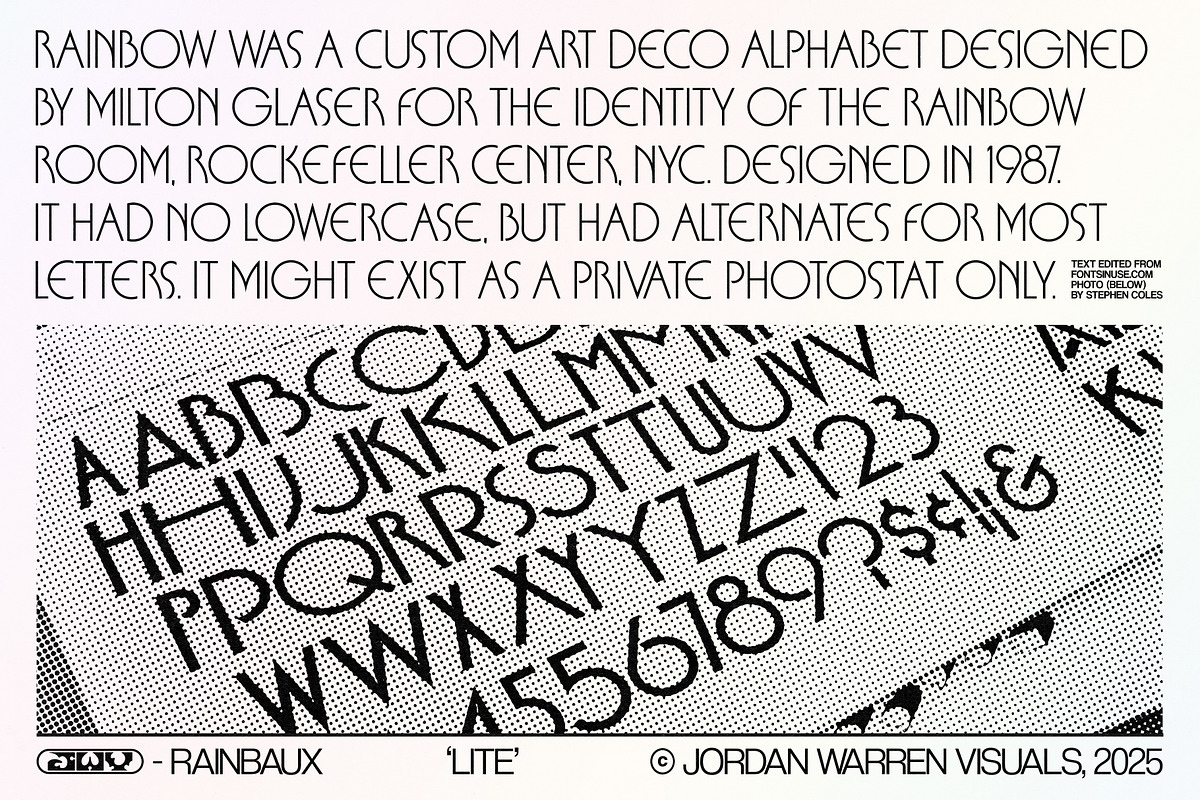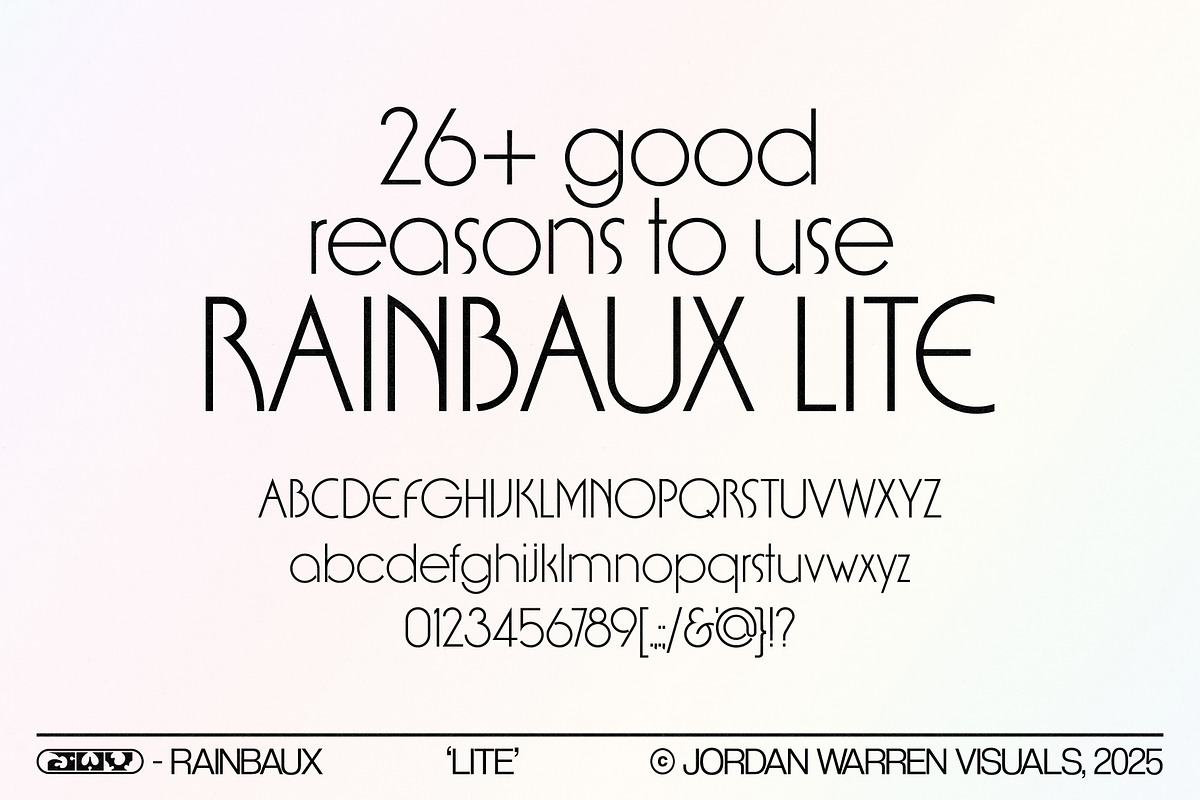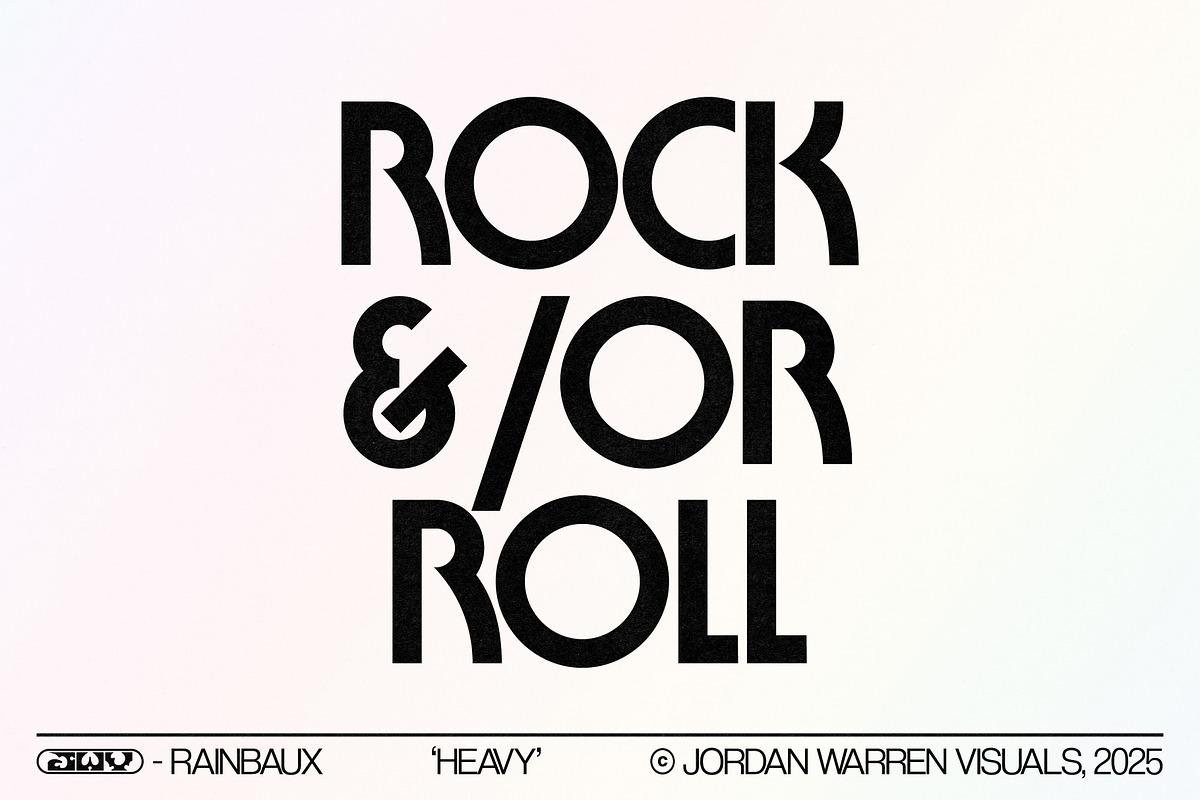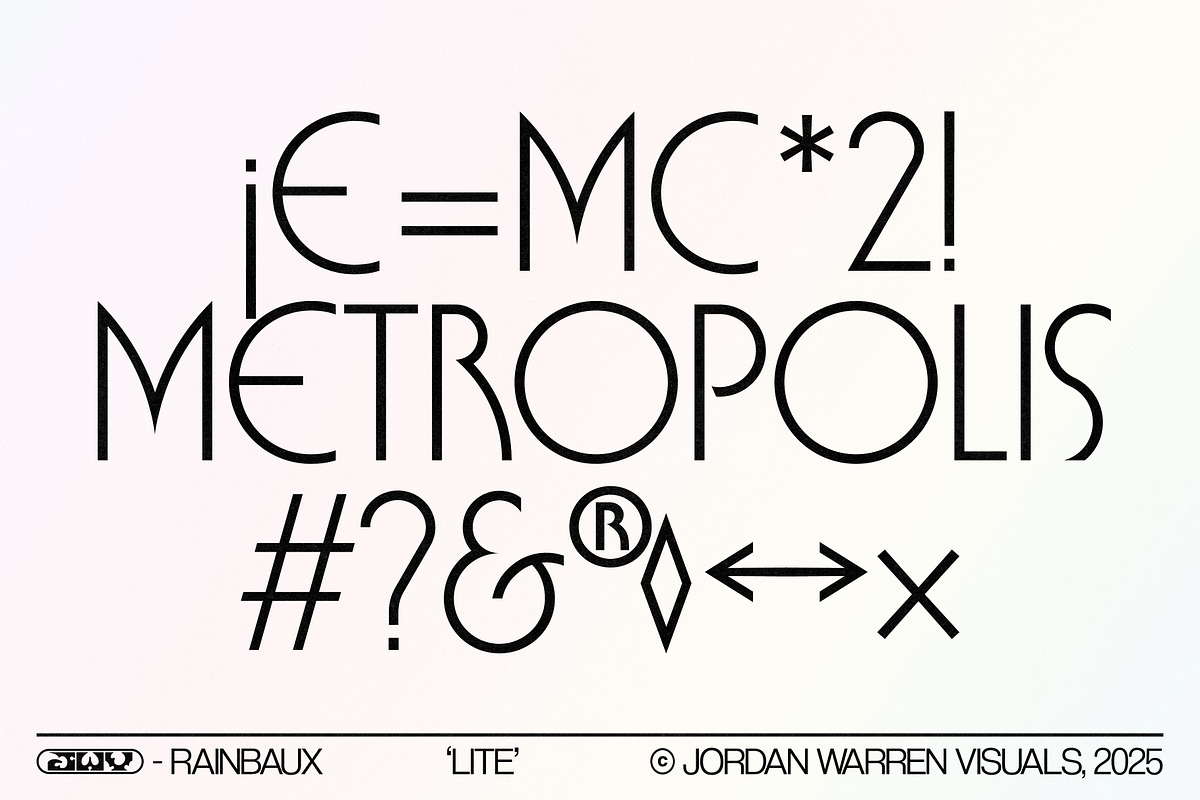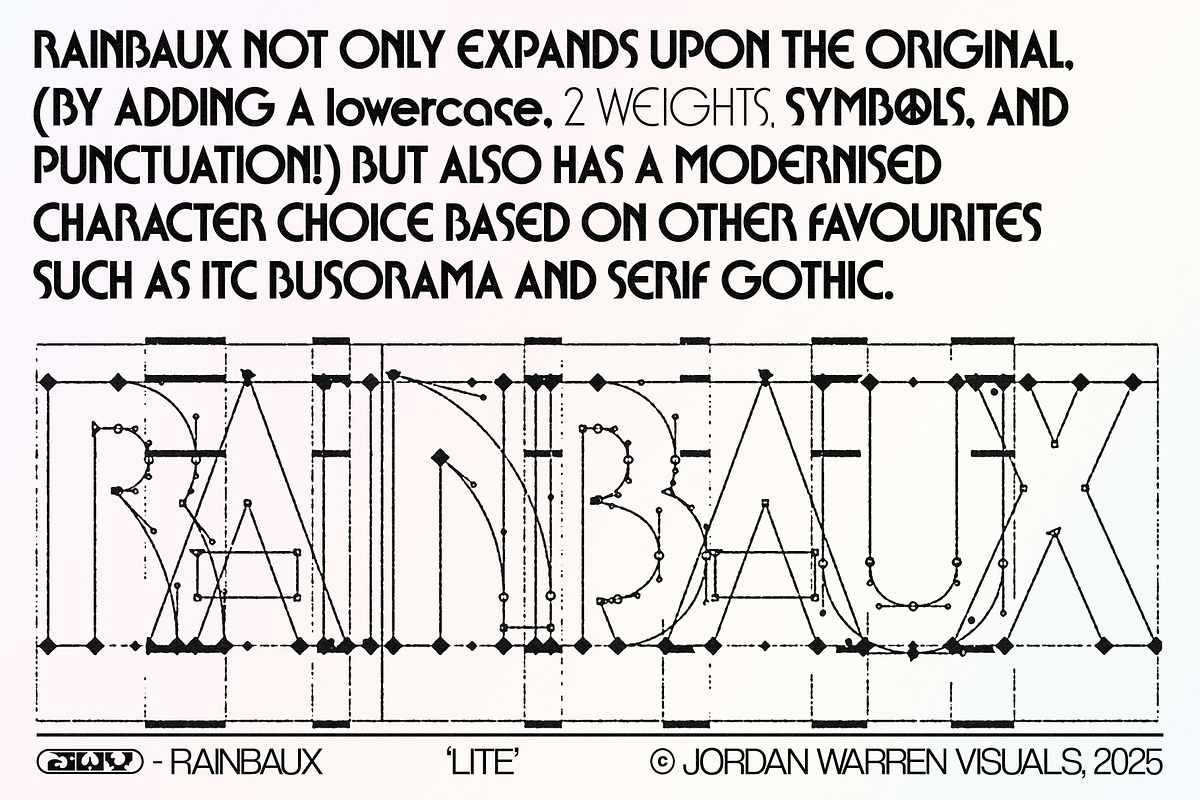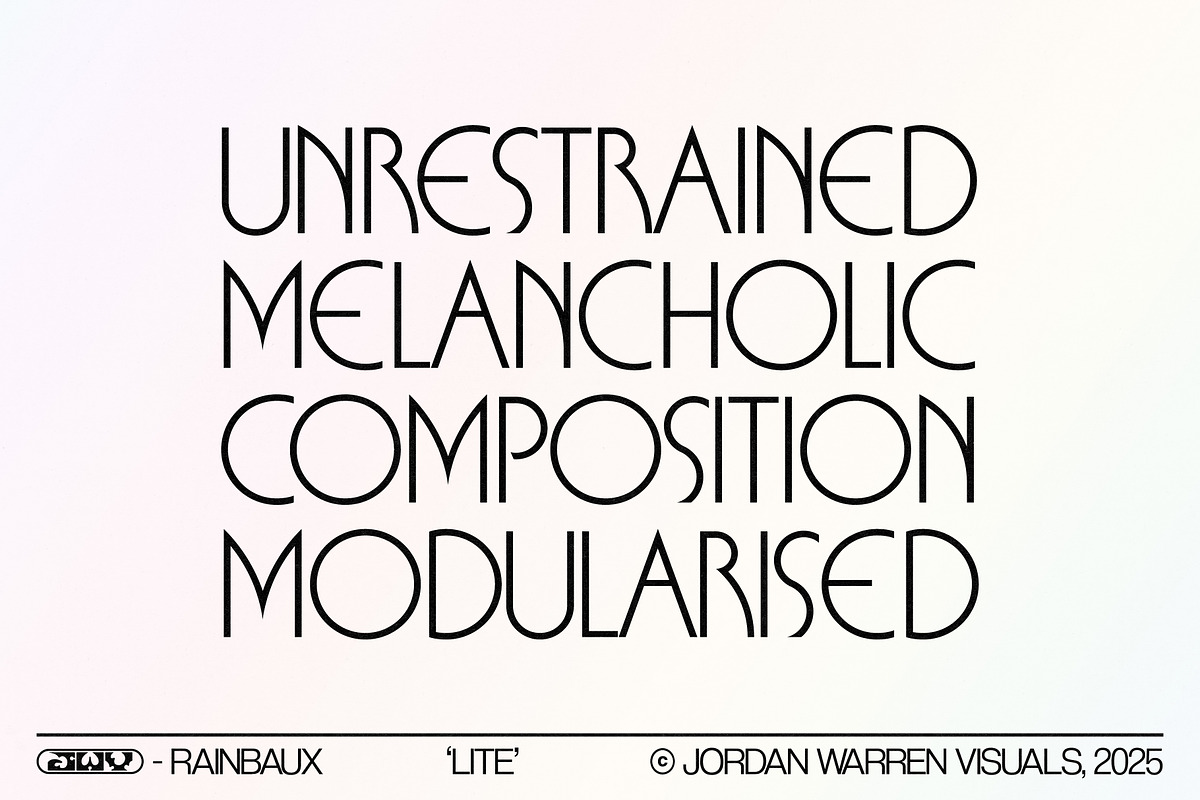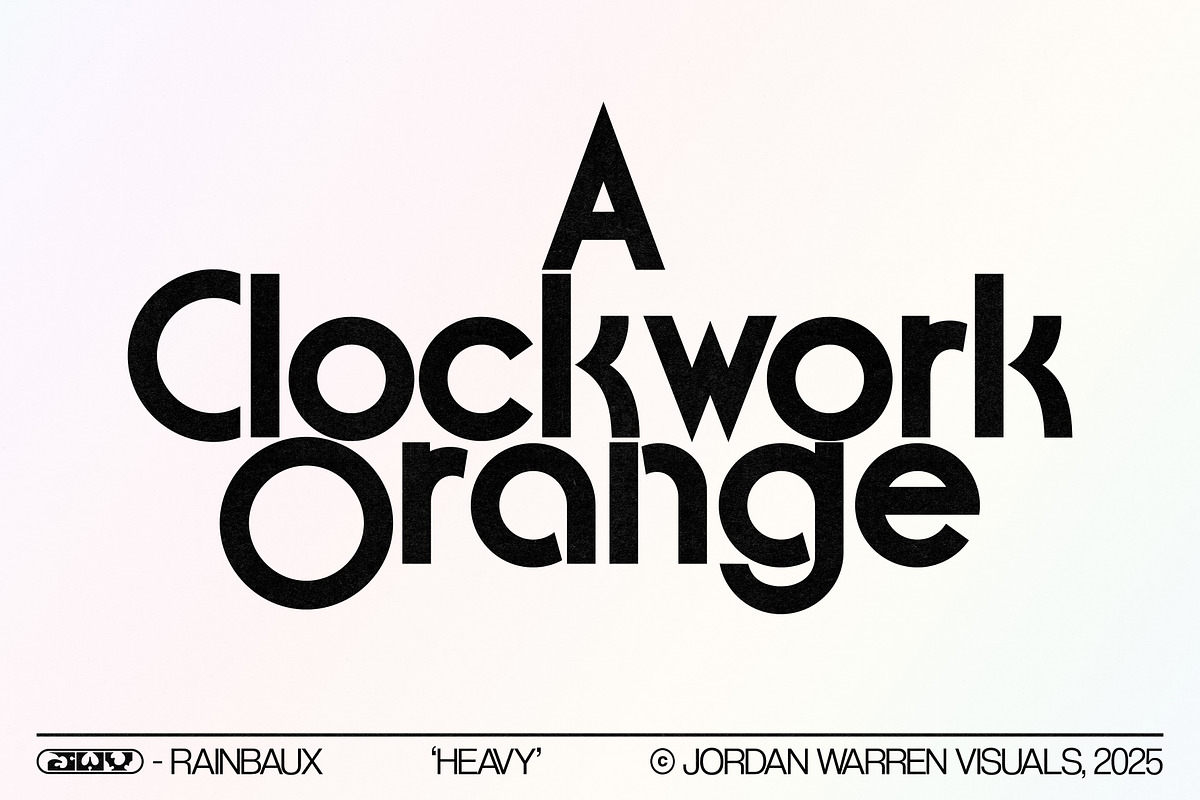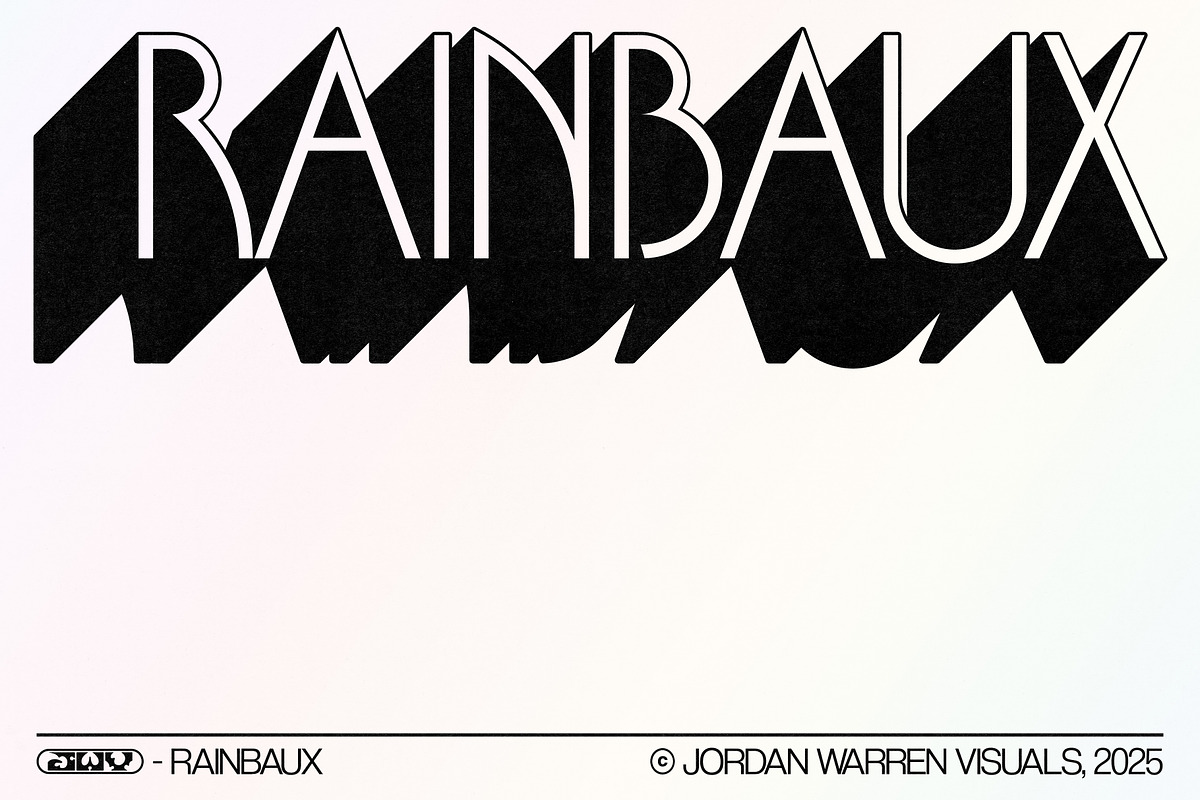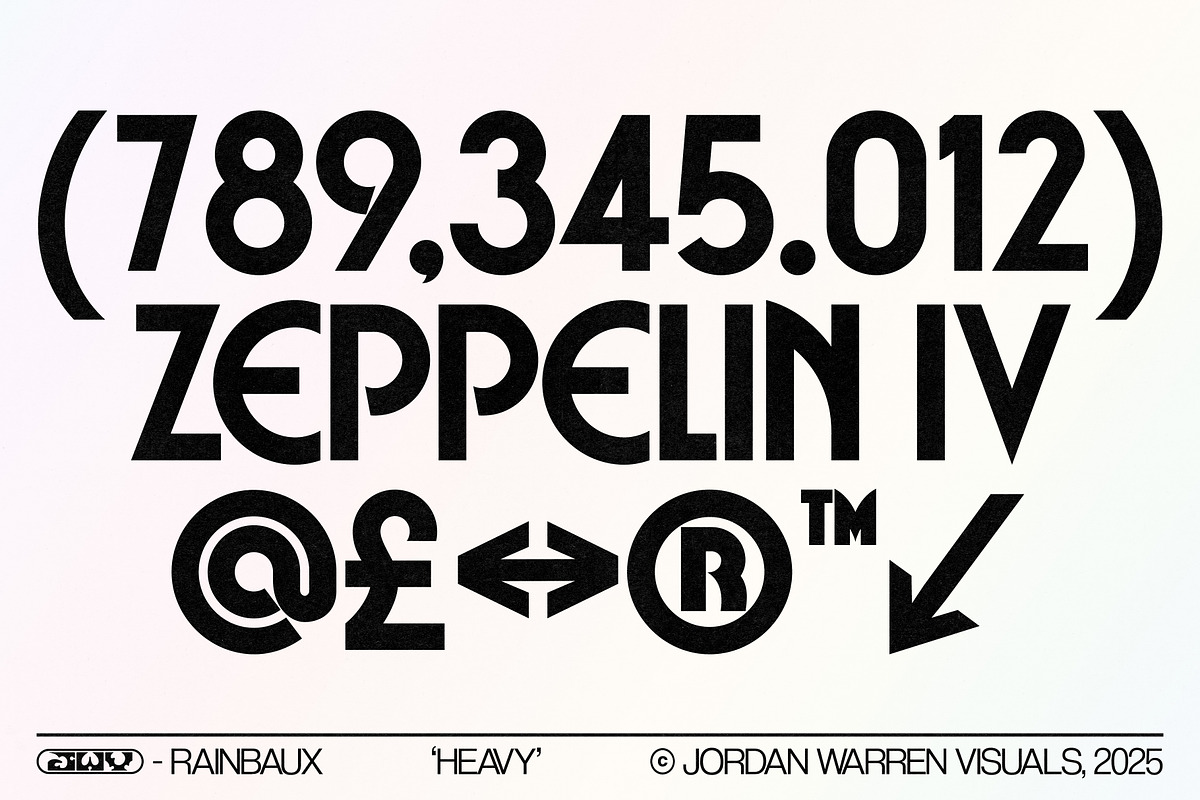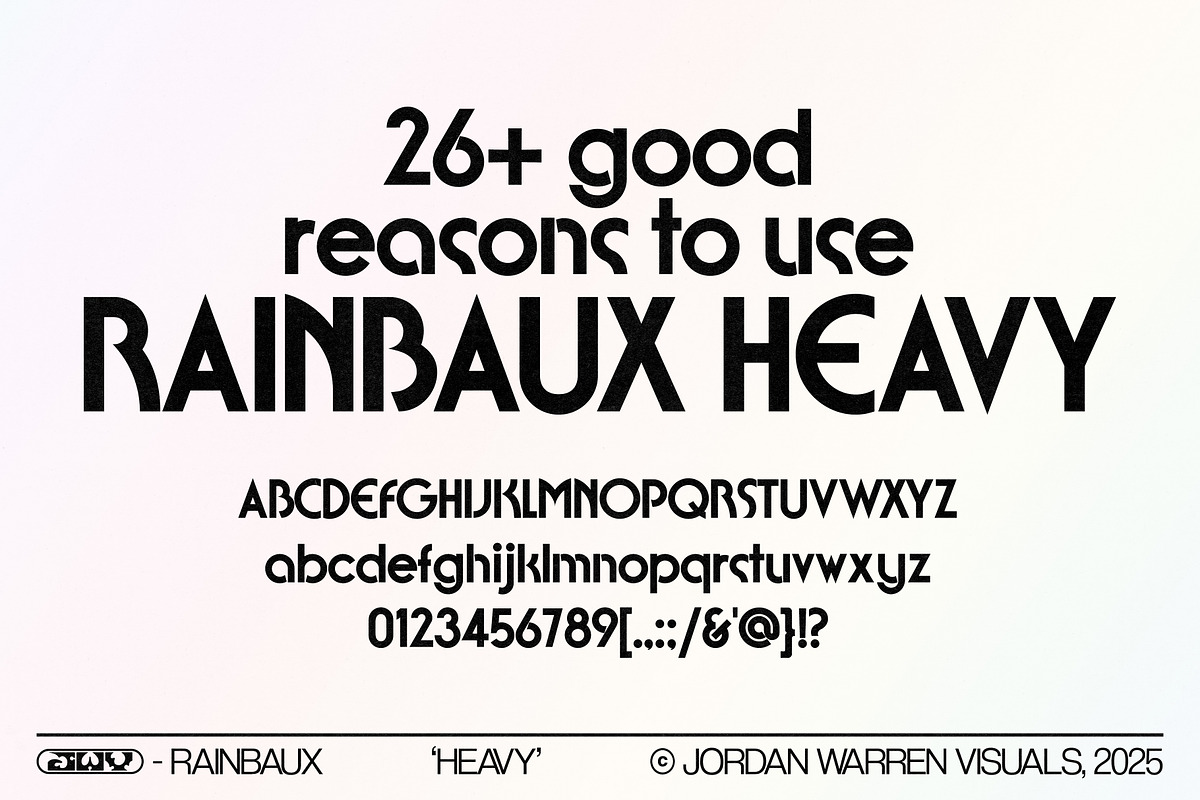
JWV - RAINBAUX
JWV - RAINBAUX is an retro Art Deco inspired font, with it's DNA made up of Milton Glaser's Rainbow (1987) and other iconic fonts such as Busorama and Serif Gothic by the creative team of Lubalin and Carnase.
RAINBAUX makes for an elegant, yet bold, display and headline font, perfect for stylish tight spacing and retro looks, from record sleeves to book covers.
The font currently comes as a family of two weights, available as a pair or individually.
- RAINBAUX Lite
- RAINBAUX Heavy (each is labelled in the promo slides)